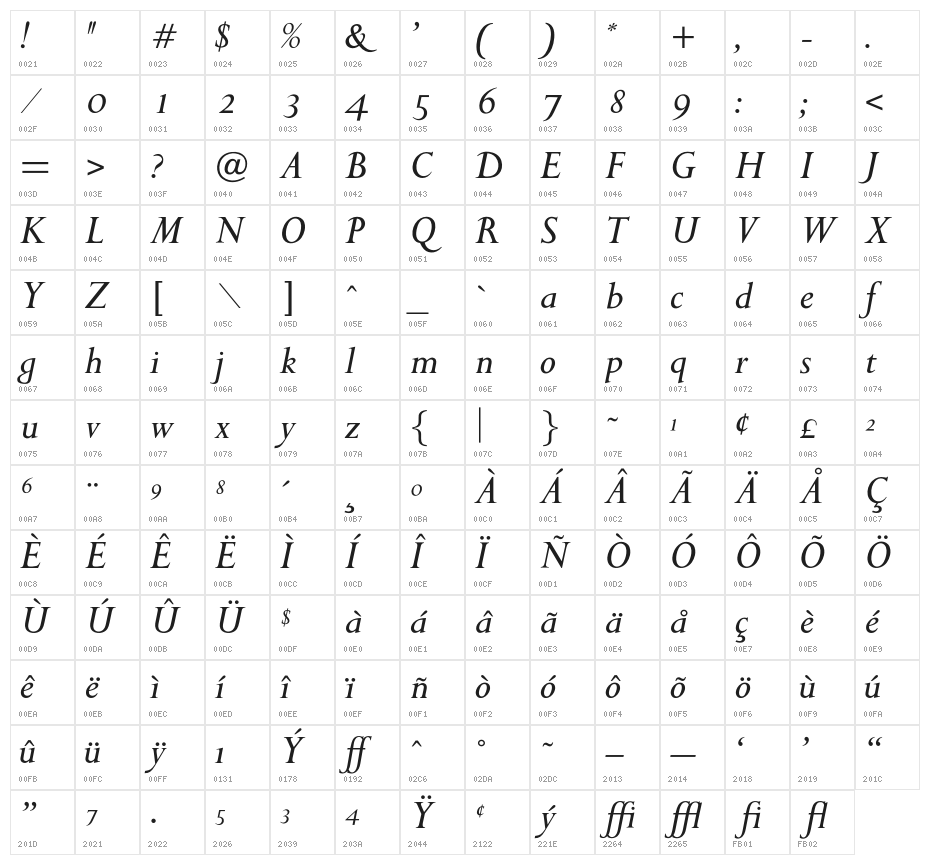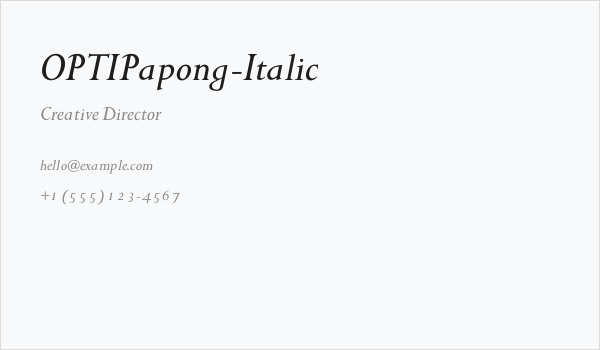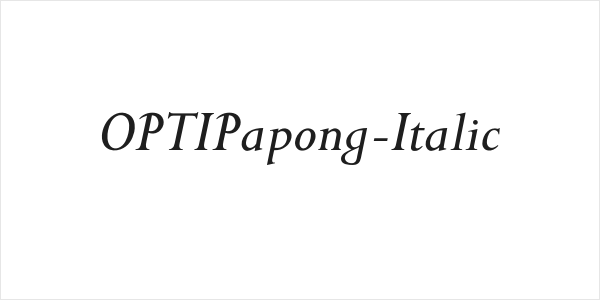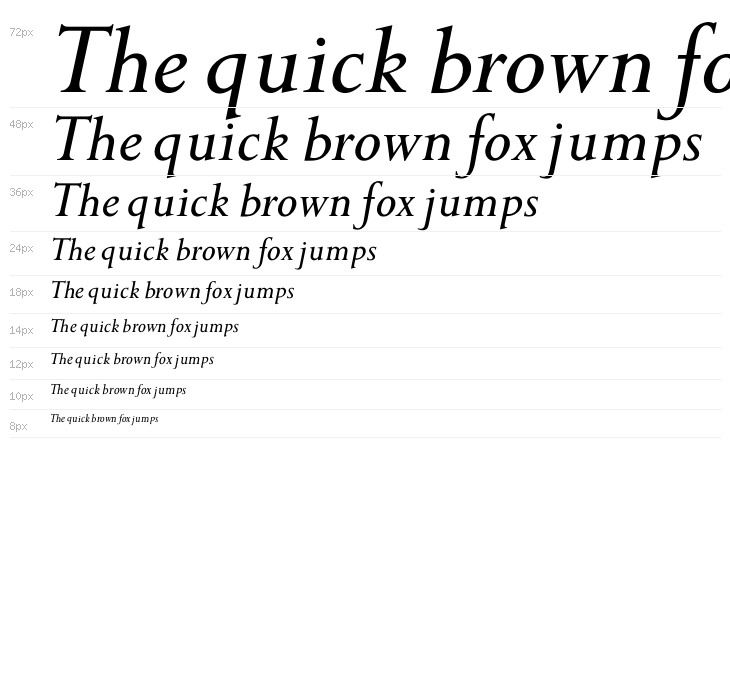
OPTIPapong-Italic Font
OPTIPapong-Italic Description
This font exhibits a classic and elegant style with a distinct italic slant, giving it a sophisticated and refined appearance. The characters are well-proportioned with a moderate contrast in stroke thickness, enhancing readability while maintaining an artistic flair. The serifs are subtle yet pronounced, adding to the traditional aesthetic. The overall design is balanced, with a slight inclination that suggests movement and grace. This font is versatile, suitable for both formal and creative applications, and its timeless quality makes it ideal for projects that require a touch of elegance.